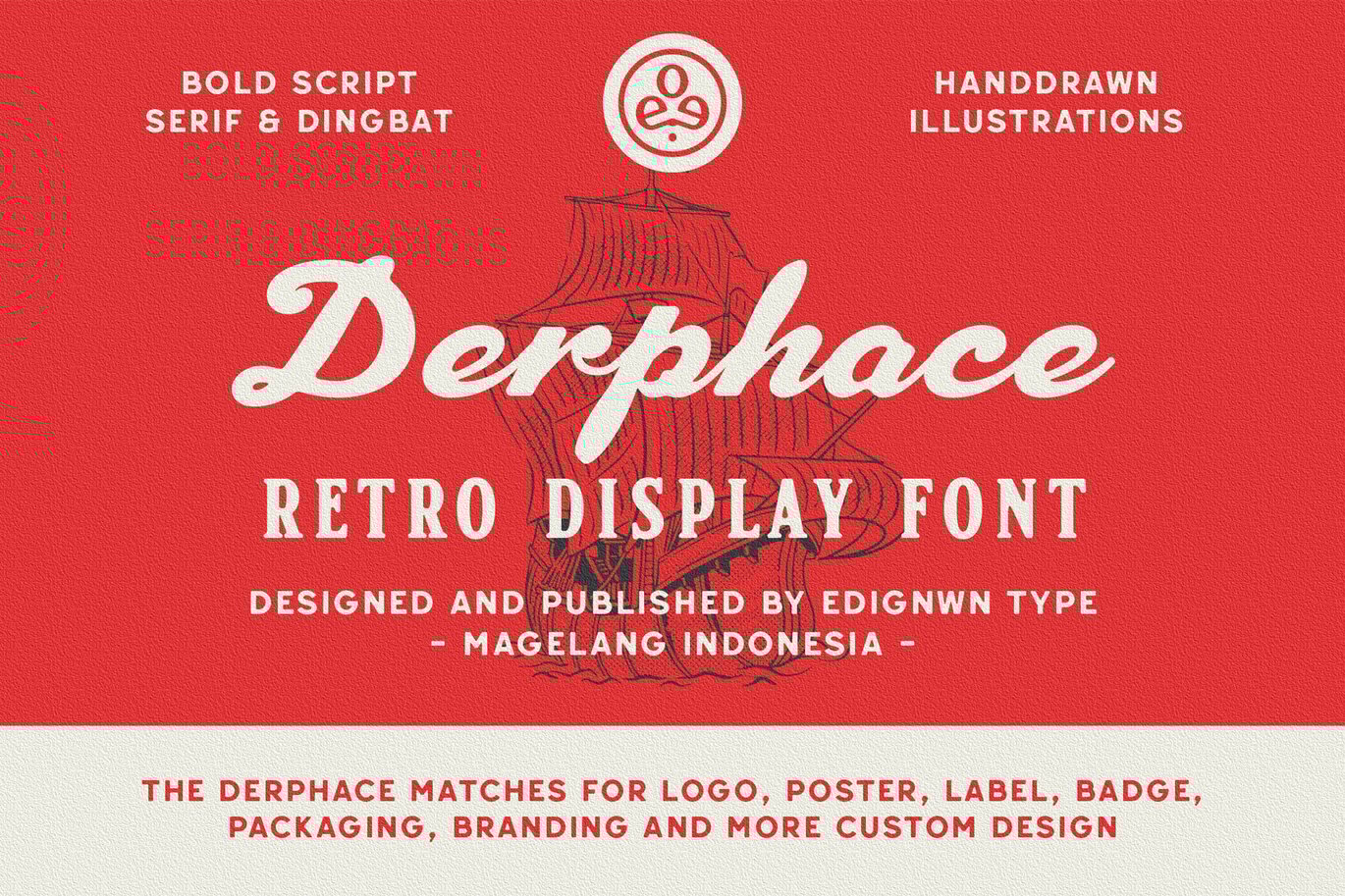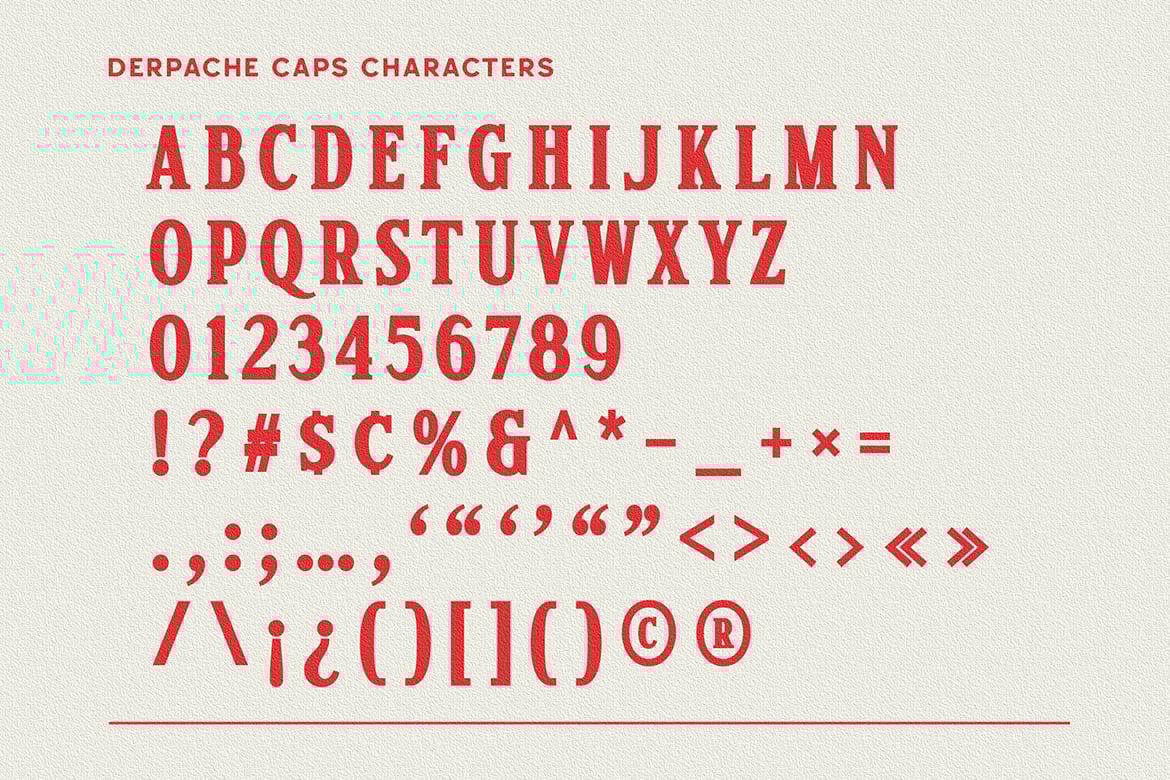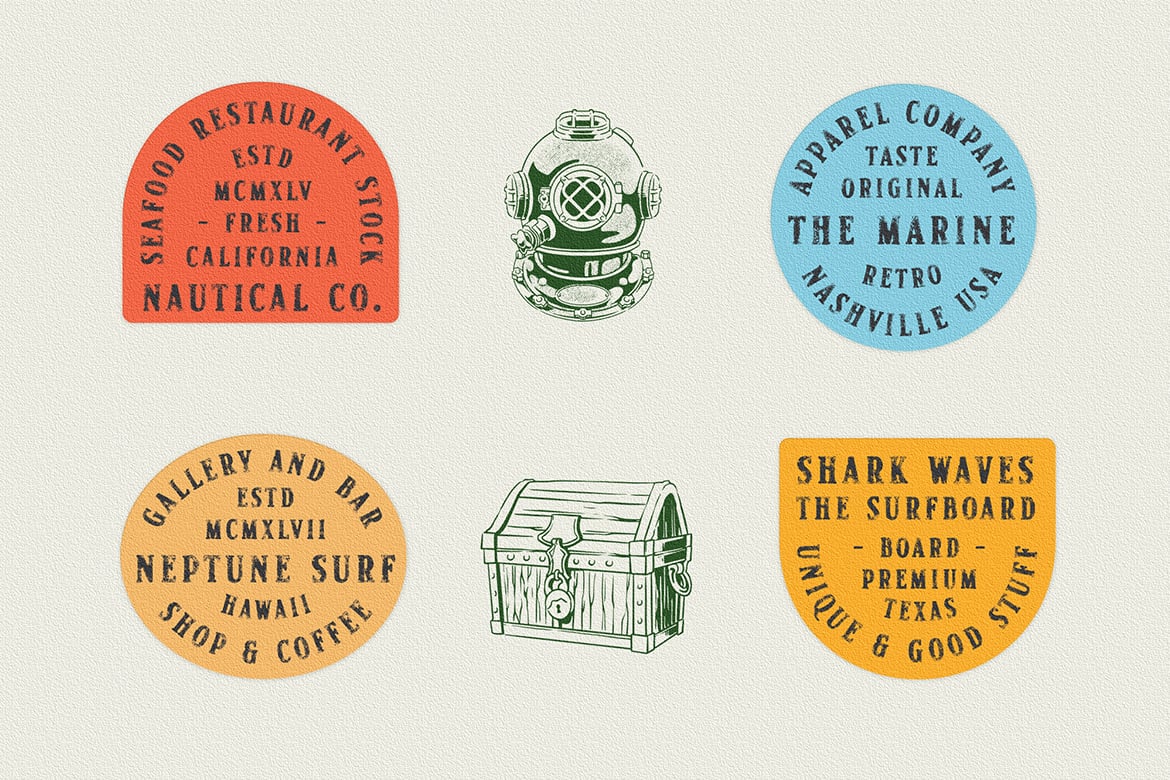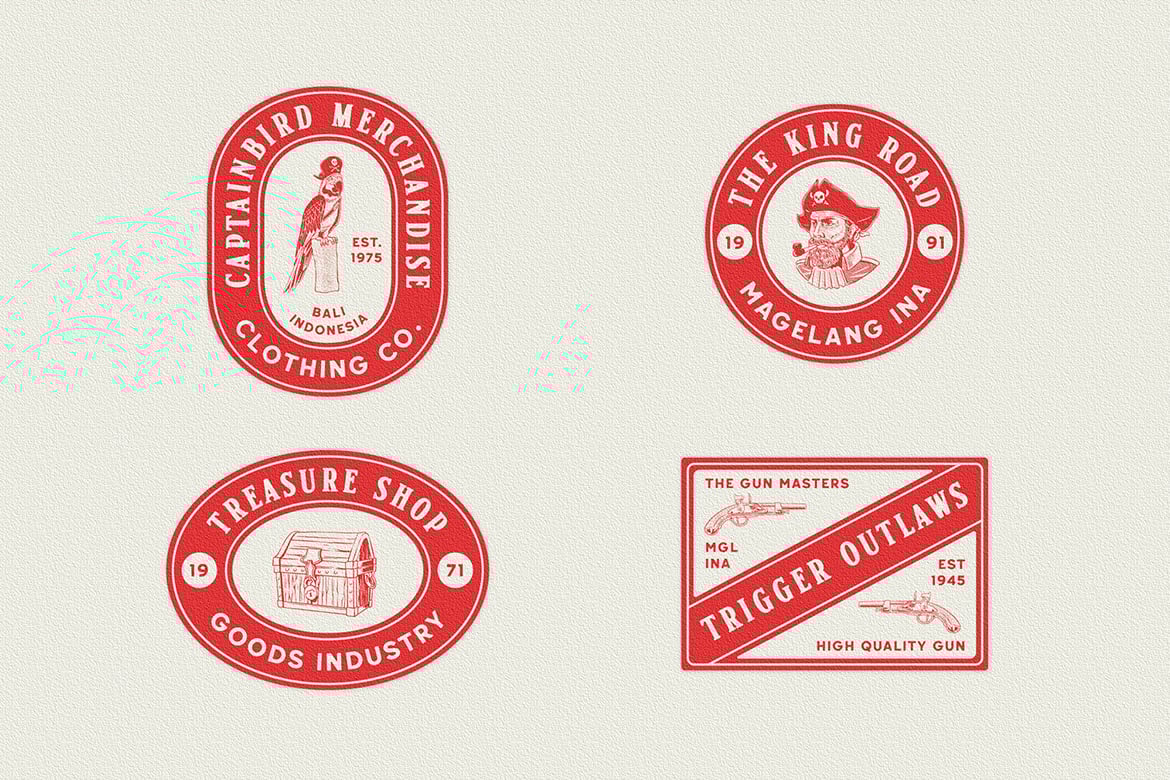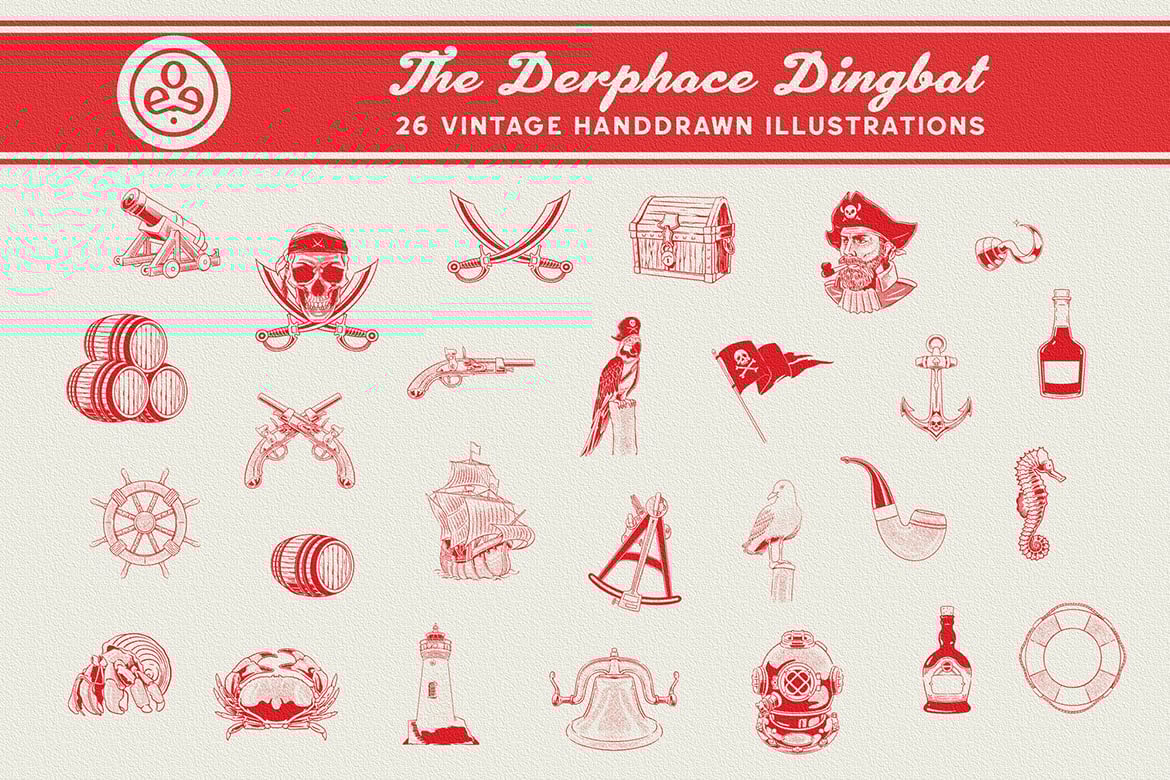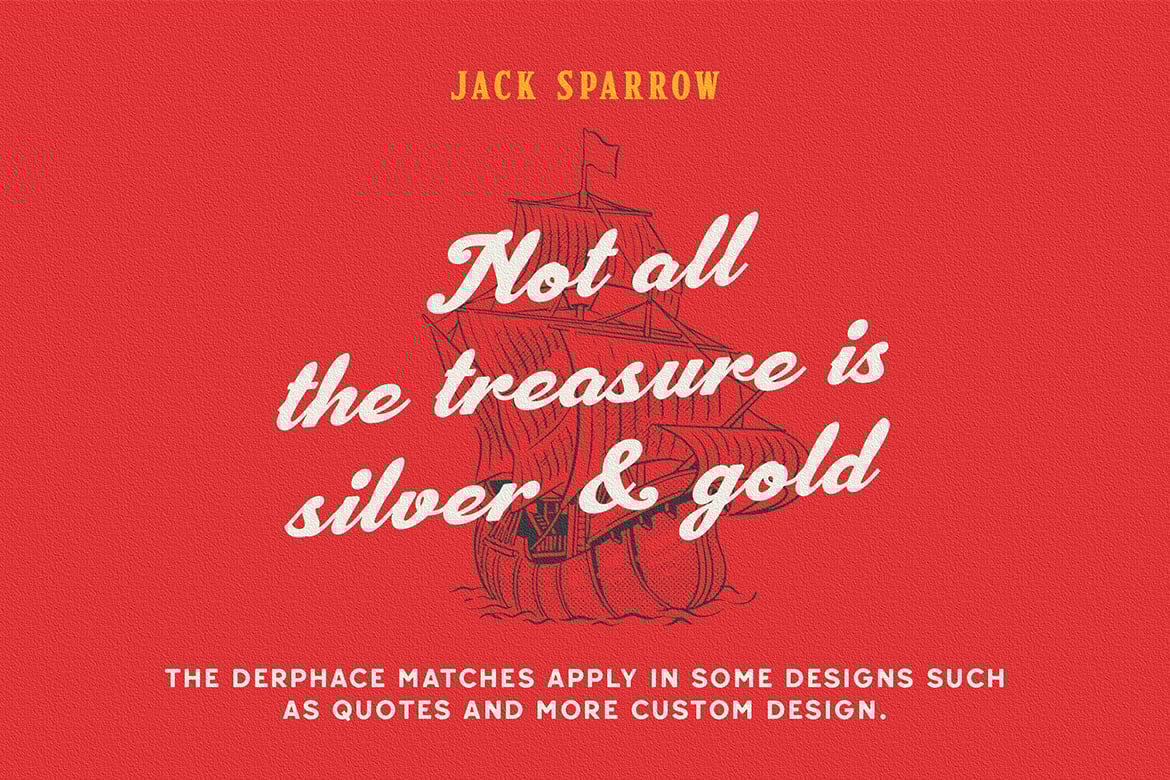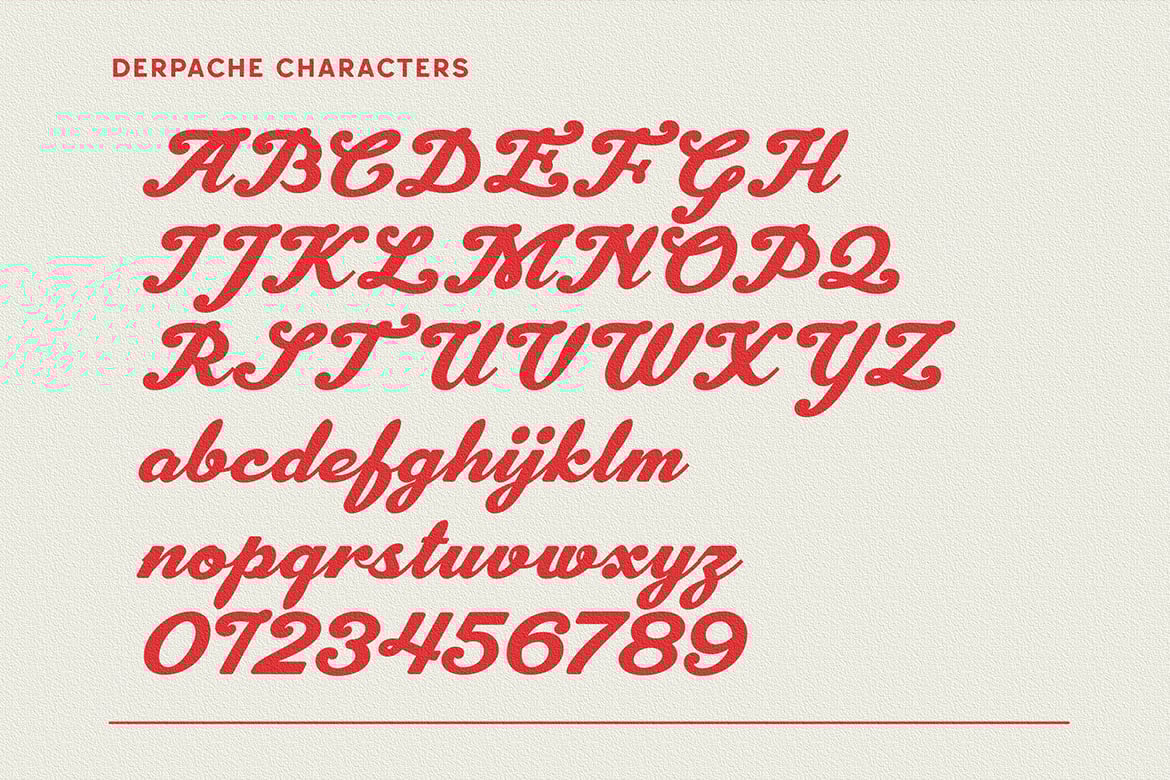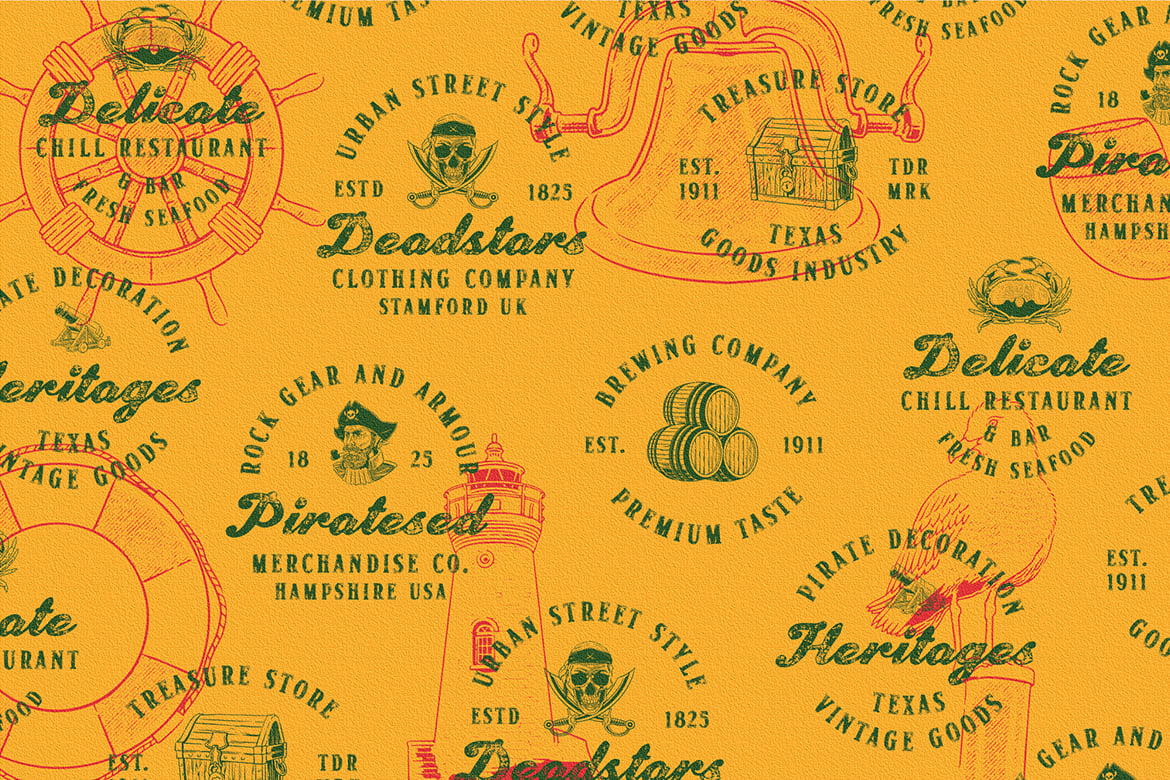
Derphace – Retro Display Font
The Derphace Font is inspired by authentic typefaces in old labels. This font collections contain script and serif font. Every font comes with 4 style typefaces (regular, rounded, rough and stamp). Derphace gives more extras nautical and pirate in one pack illustrations. This script font includes some alternates. The Derphace matches apply in some designs such as the logo, poster, label, badge, packaging, branding, quotes and more custom design.
Derphace features :
- 4 style typefaces (regular, rounded, rough and stamp)
- Uppercase, lowercase, numeral, symbol, punctuation and alternate in script font
- All-caps, numeral, symbol and punctuation in serif font
- 26 hand-drawn illustrations in dingbat